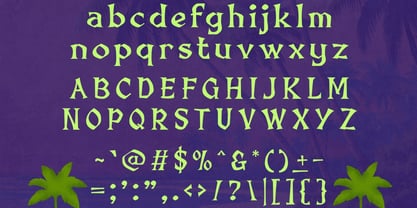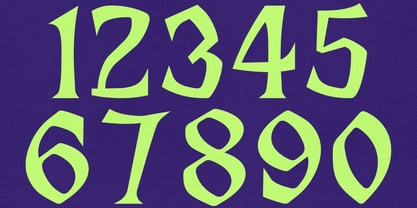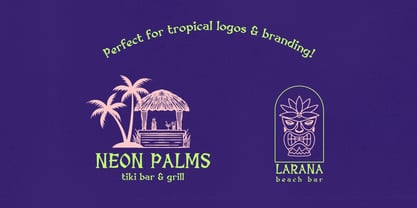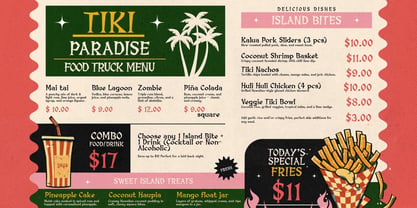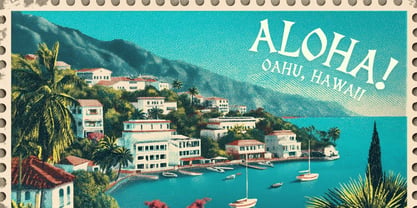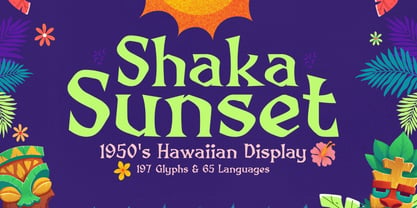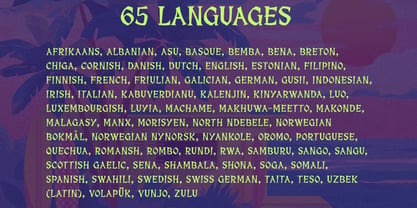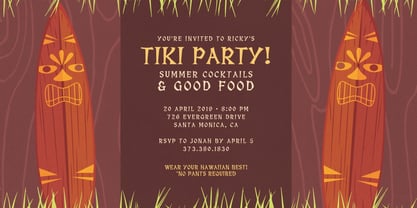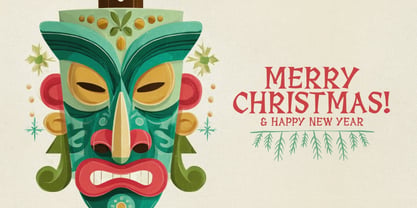
Shaka Sunset
The Shaka Sunset Font Family was designed by Igor Ovsyannykov and published by Hipfonts. Shaka Sunset contains 1 styles. More about this family
Say hello to Shaka Sunset, a warm and nostalgic typeface inspired by Hawaiian culture, vintage tiki signage, and the vibrant design energy of the 1950s. With sharp edges, hand-crafted charm, and a wonderfully imperfect flow, this typeface infuses your work with a natural human touch — relaxed, carefree, and full of island personality. Shaka Sunset captures the retro spirit of sun-bleached surfboards, tiki bars, palm-lined beaches, and tropical adventure posters. Its playful irregularity brings authenticity and soul to every stroke, making your designs feel less mechanical and more alive. Perfect for summer branding, tropical drink menus, beach party invitations, surf apparel, travel posters, retro signage, packaging, YouTube thumbnails, vacation merch, and anything that needs a taste of island happiness, this typeface delivers aloha vibes with effortless style. Whether you're designing a cocktail menu or creating a retro surf campaign, Shaka Sunset brings the sunshine, the tiki charm, and the golden glow of a perfect island evening.
Shaka Sunset